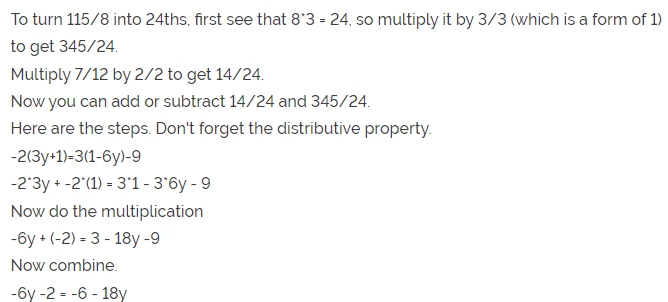
Is it just my view of the Community, or was it a global setting (not under my control) that changed the font of the text of postings in this community.
I have some serious objections to the new font. There is NO discernable difference between a 0 and an o,  (those are a zero and a lower case o) and the difference between . and , (a dot and a comma respectively) is too small.
Please change the font back to the previous one, or choose another font that clearly discerns 0 from o, , from . and i from l, 1 and I (this is a problem encountered in some other fonts).
As announced above, we changed the font yesterday so that the numbers display in a consistent manner.
Hi, I added this conversation to bring up to the Community Team.  @TomU is correct that the font change is tied to the UI changes we made with the Community Homepage.  We brought the newly suggested font to some active community members (including a heavy Mathcad user) before implementing the change. The specific issue with "zero" and "O" did not come up.  We appreciate you bringing this to the forefront.
I second your thoughts about the new font. The representation of the numbers is just horrible  - not only because of the reasons you mentioned but also because its quite confusing having that mix of normal (68), lowercase (012)  and subscripted (3457) numbers.
I won't suggest going back to the font we had before as it was far to light and hard to read but rather going back to the font we had before that.
I can also imagine that a font with serifs is better suited for body text than a fancy font like this.
Bad oversight on our part - very sorry about that.
To replace into context, the specific change of font is to align the PTC Community with PTC.com and the PTC Knowledge base - there is a branding aspect to it. We overlooked that the font we used displays the numbers 3 different ways - very annoying:
In context, it looks like this currently (just some copy with words and numbers):
We are preparing a change to be published in a few days that will show a slightly different version of the same font. It will display the numbers in a cleaner way:
As announced above, we changed the font yesterday so that the numbers display in a consistent manner.